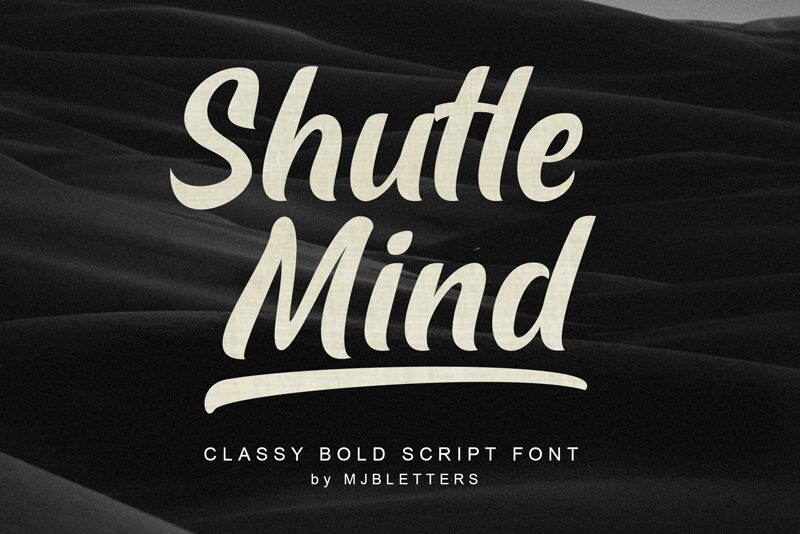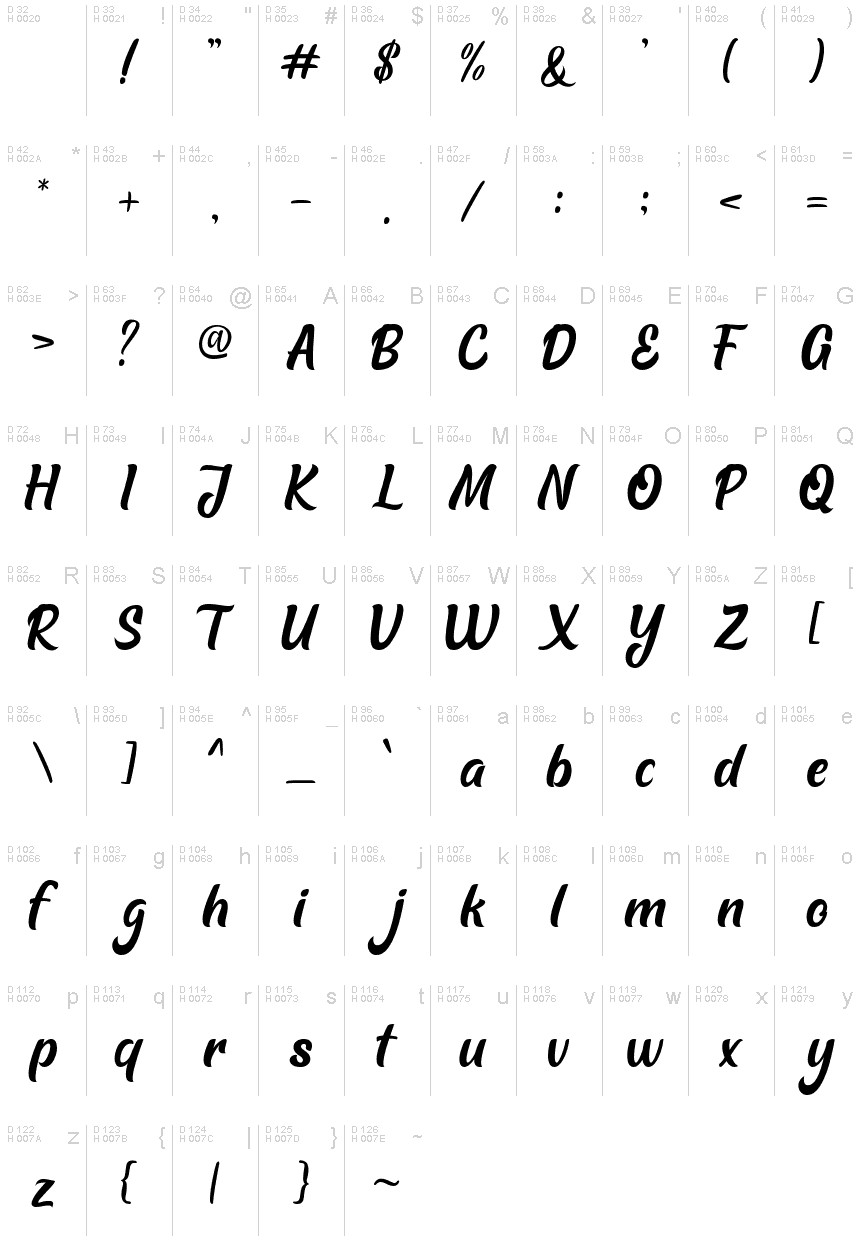
Shutle Mind
Shutle Mind, a captivating creation by MJB Letters in 2020, is an exquisite semi-bold font that combines the elegance of smooth brush strokes with a touch of contemporary flair. With its graceful curves and impeccable detailing, this font is perfect for projects that require a balance between sophistication and modernity. From luxury branding to fashion editorials, from artistic websites to high-end packaging designs, Shutle Mind effortlessly elevates any creative endeavor. Its versatility makes it suitable for various projects, ensuring that your message stands out with its unique blend of refinement and creativity. Unleash the potential of Shutle Mind and redefine visual storytelling.